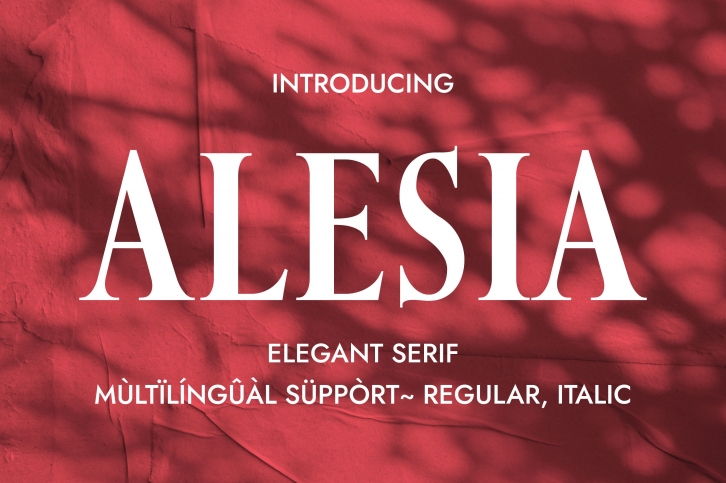
Alesia is a romantic, minimalist, and elegant serif typeface. Its elegant aspect and the accurate glyphs structure make it the perfect choice when it comes to packaging design, fragrance design, titling, cosmetics design, website banners, and many more. Use it in your creations and you will notice how much powerful it ports inside every glyph.